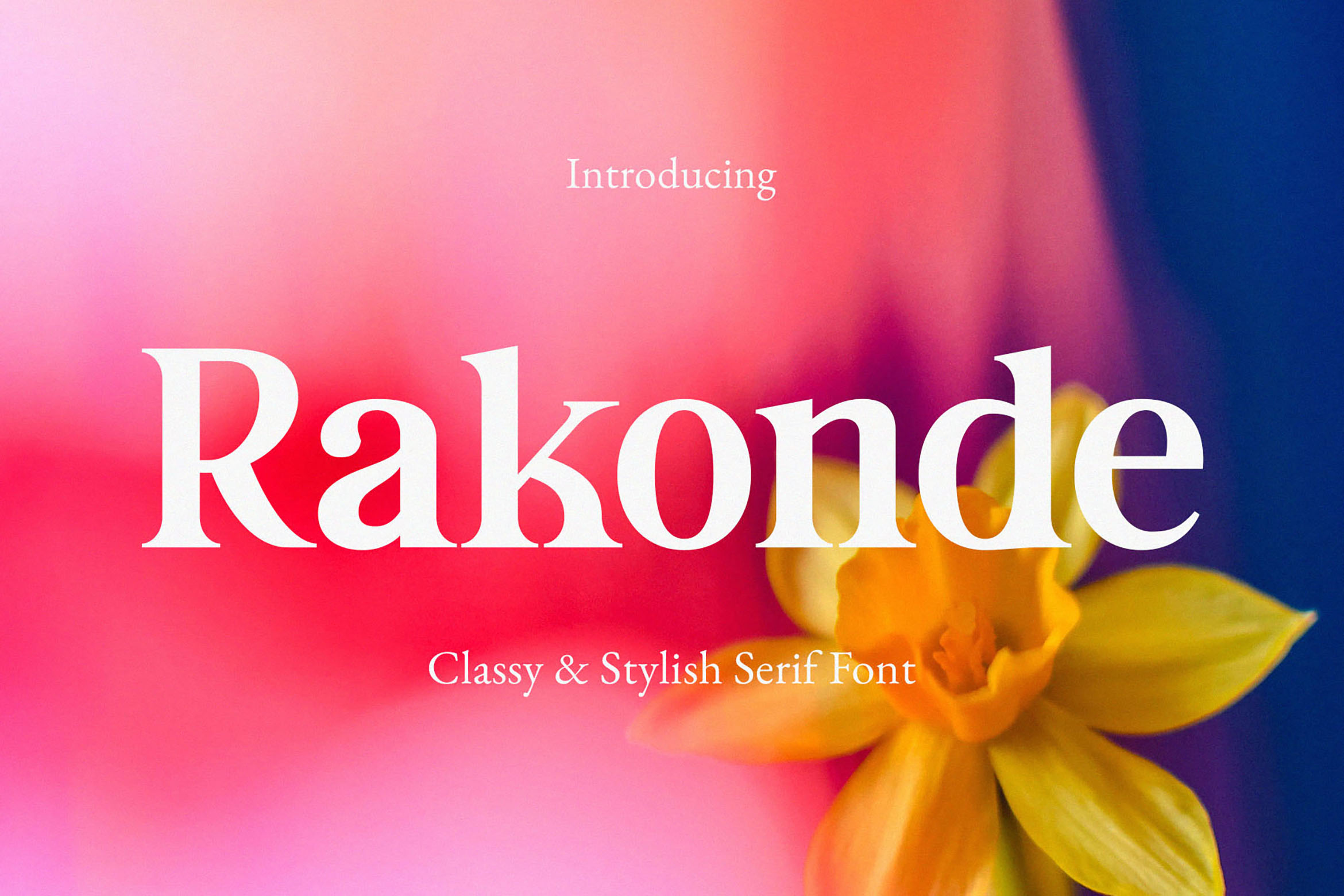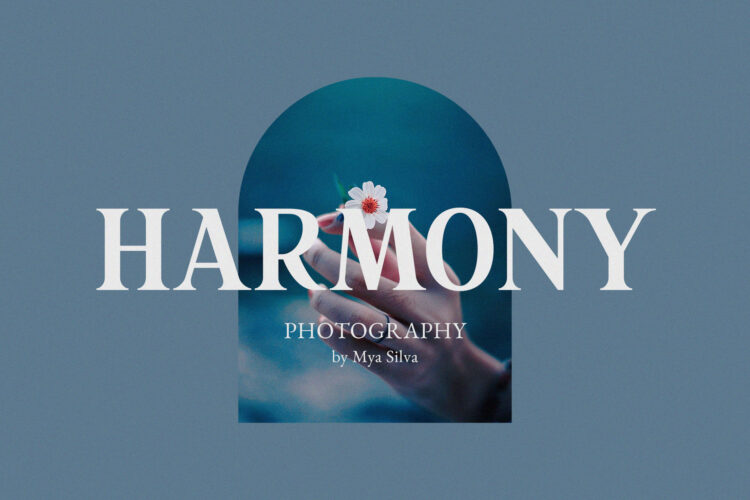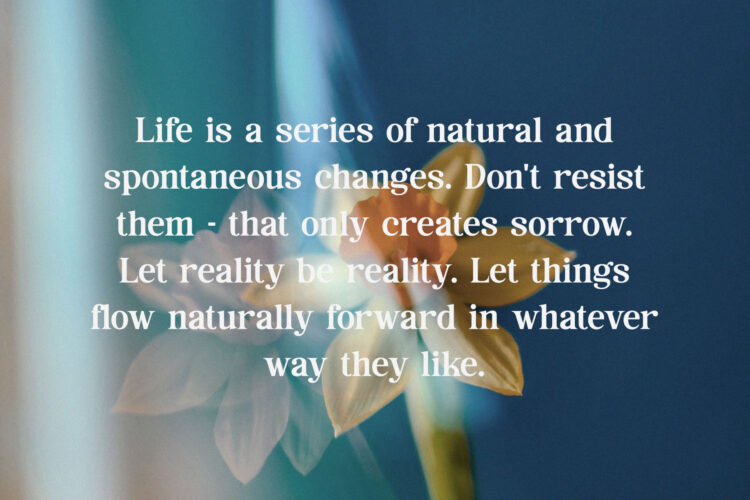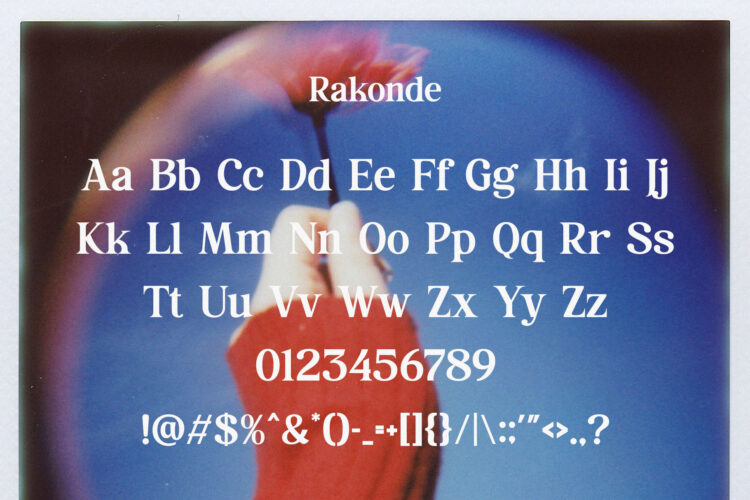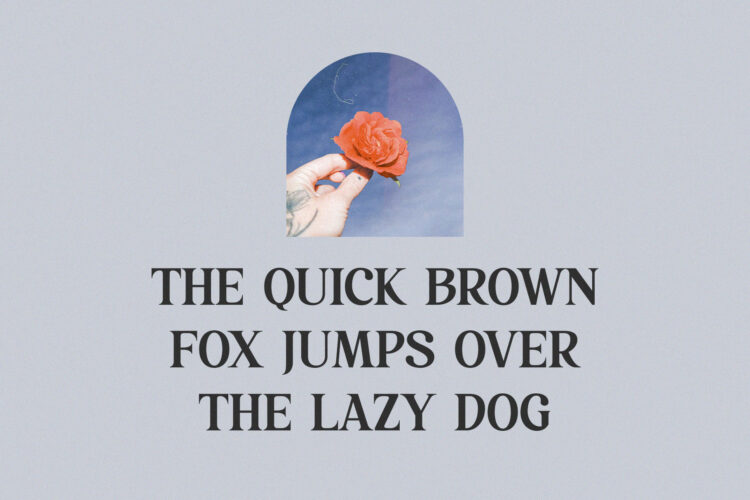
Introducing our new Rakonde, modern serif font with elegant style this is perfect for branding, logos, invitation, magazines, product packaging and more.
Rakonde – Classy & Stylish Serif